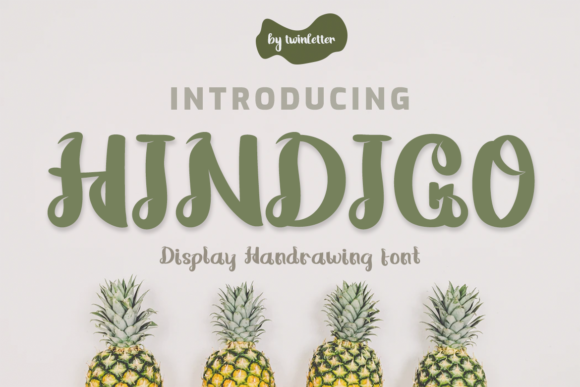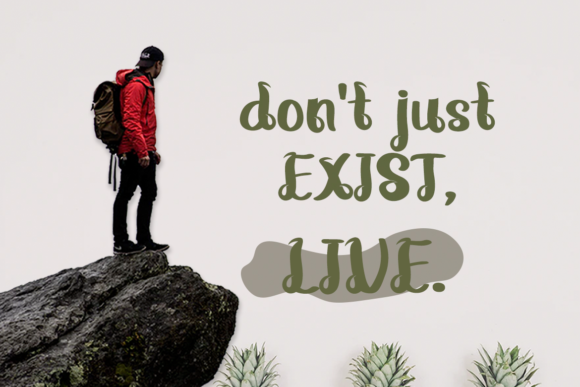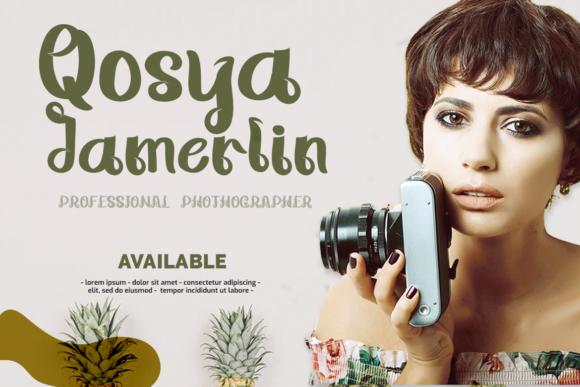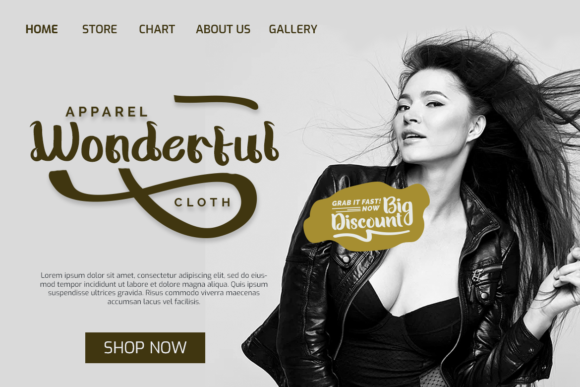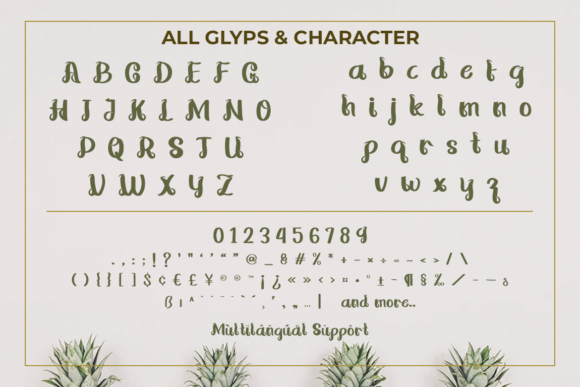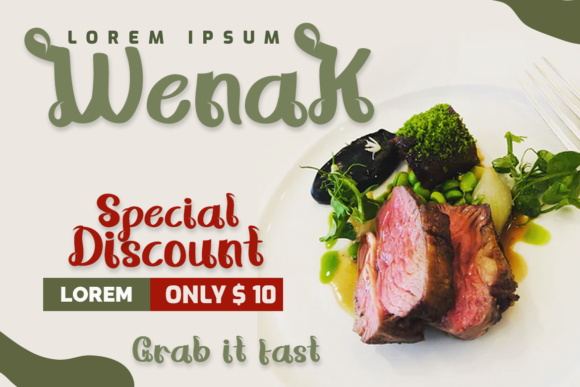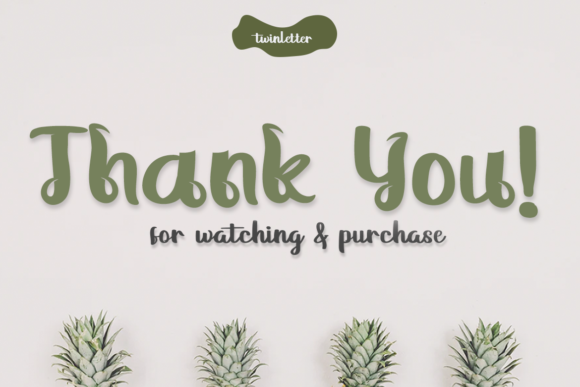
Hindigo Font
About Hindigo Font
Hindigo is a unique handwritten font, designed with the help of an outstanding brush pen. Its neat and well balanced characters make this font incredibly versatile, fitting a wide range of contexts. Add it to your creative ideas and notice how it makes them stand out!